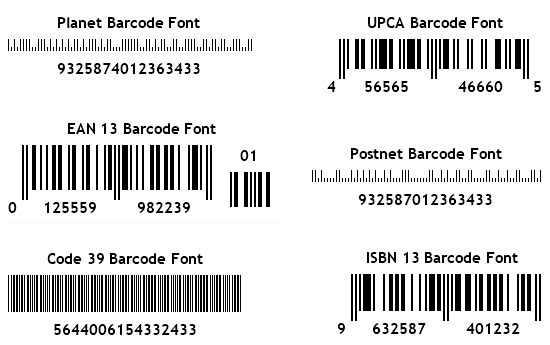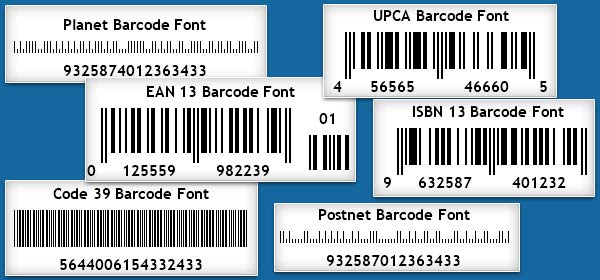
Types Of Barcode Fonts
Types Of Barcode Fonts. However, as a backup data source (if i. Data matrix is a very area efficient 2d barcode symbology that uses a unique square module perimeter pattern that helps the barcode scanner determine cell locations.
This is not the barcode for upc's (universal price codes) found on products at the store. When supplementing a barcode with human readable characters, it’s either for convenience of the human or because the barcode has become unreadable. Idautomation's barcode font packages include multiple barcode types to meet different platforms and applications.
If A More Compact Barcode Type Than Code 39 Is Required, Consider Code 128 Or A More Durable 2D Barcode Symbology Such As Pdf417 Or Datamatrix.
Code 128 features an automatic switching setting that allows users to optimize it for barcode length. Barcode types (ean, code 39, itf, codabar, code 128) about 100 types of barcodes are available in the world. What is a barcode font?
Each Of The Fonts Is Developed And Crafted To Ensure Maximun Scannability And Readability.
However, most kinds of barcode scanners will recognize 3 of 9 just fine. Knowing the specifications is useful for calibrating fonts used on report layouts. 2d barcodes include some newer.
Like Traditional Fonts Such As Calibri, Arial, Times New Roman And Even The Dreaded Comic Sans, Barcode Fonts Can Be Applied To An Encoded String Of Data To Transform It Into A Readable Barcode.